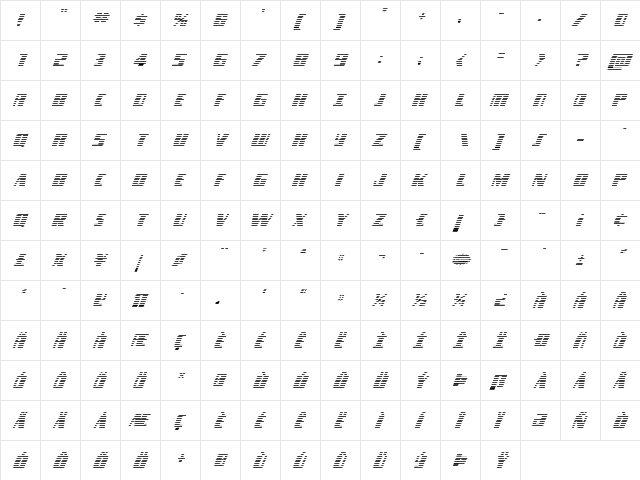
Typhoon Gradient Italic Italic
Design Context for Typhoon Gradient Italic Typeface
Typhoon Gradient Italic is a composed and adaptable typeface that performs quietly and consistently across a wide range of design contexts. The slanted form adds forward momentum and visual energy.